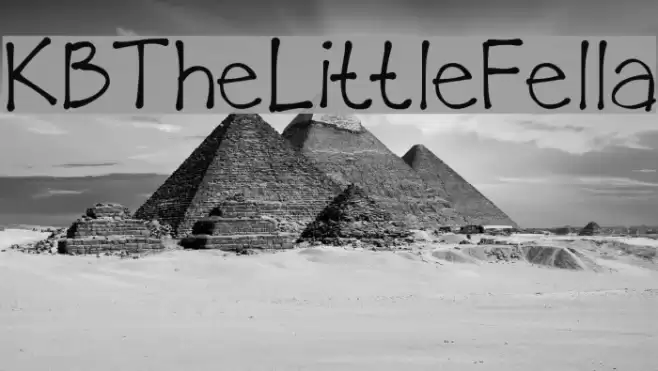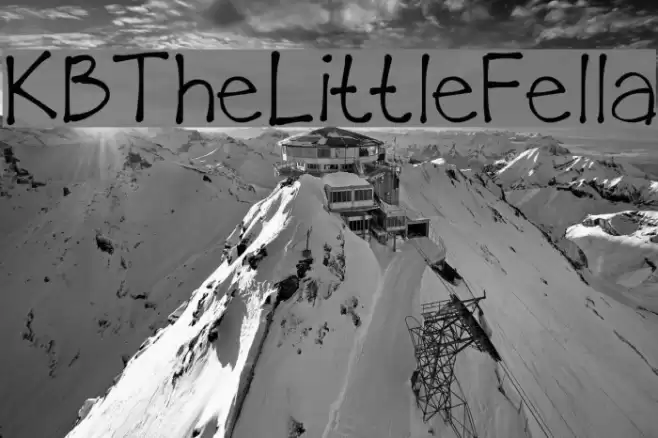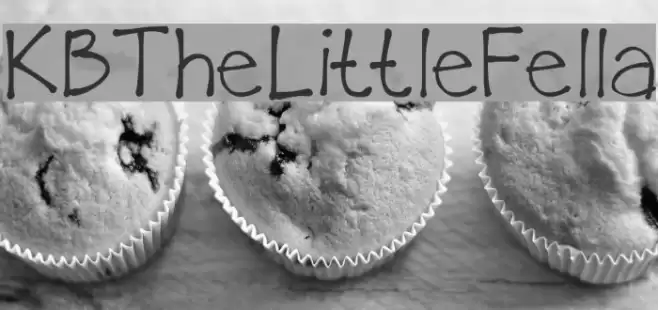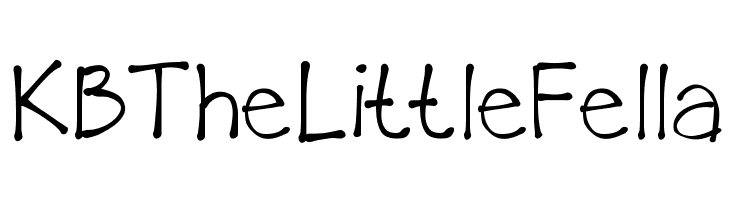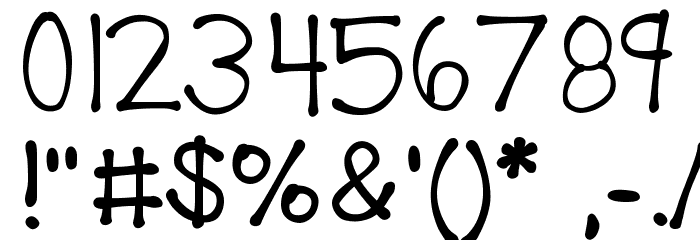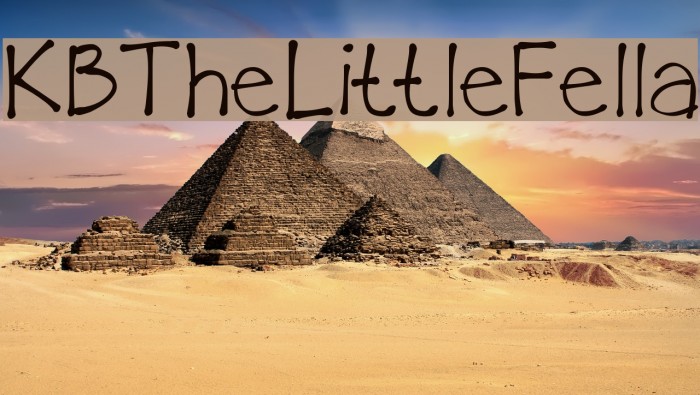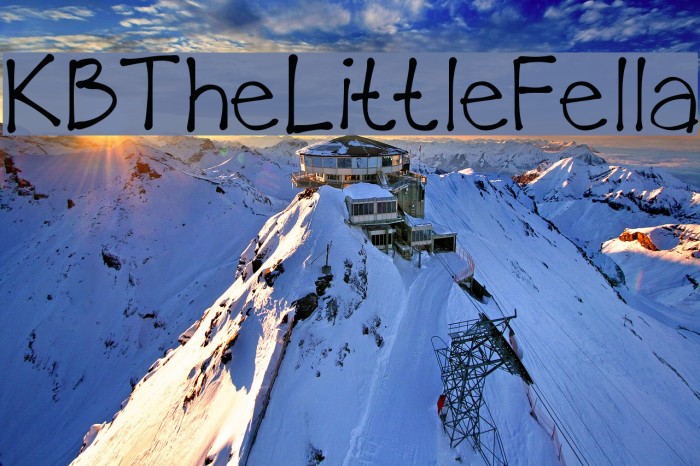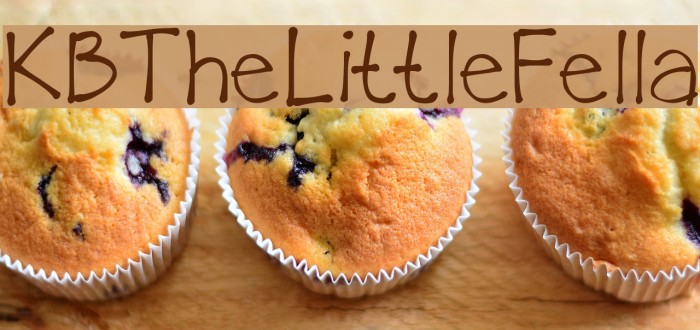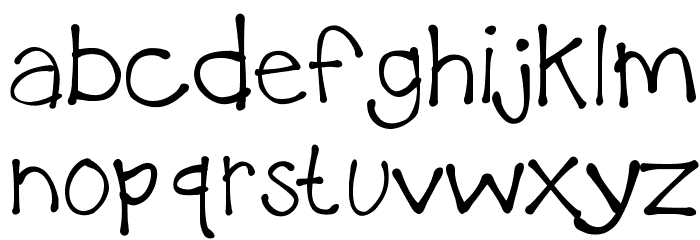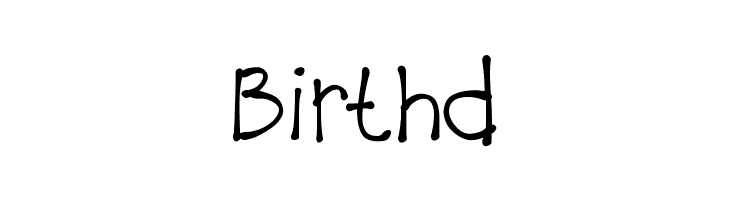
KBTheLittleFella Font
KBTheLittleFella Description
This font exudes a playful and whimsical charm, characterized by its handwritten style that mimics the casual strokes of a marker or pen. The letters are slightly uneven, adding to the font's informal and friendly appearance. Each character has a unique flair, with rounded edges and a consistent stroke width that maintains readability while conveying a sense of fun. The numbers and special characters follow the same playful aesthetic, making this font suitable for projects that require a touch of personality and creativity. Its informal style makes it ideal for children's books, playful branding, or any design that aims to evoke a sense of joy and approachability.
A playful, handwritten font with a whimsical and informal style from Uncategorized fonts.
- Proposed Projects: Children's books, playful branding, greeting cards, casual invitations, and creative posters.
- Overall Style: Playful, Whimsical
- Use Case: Headlines, Logos, Informal Text